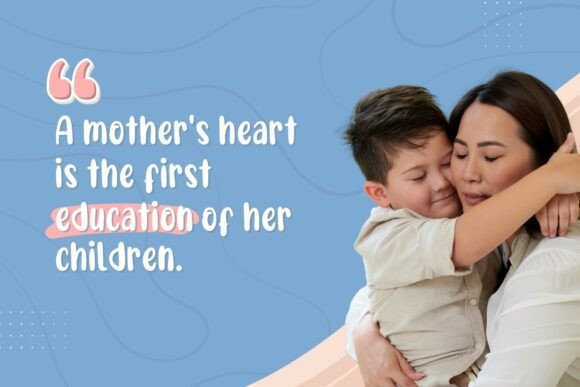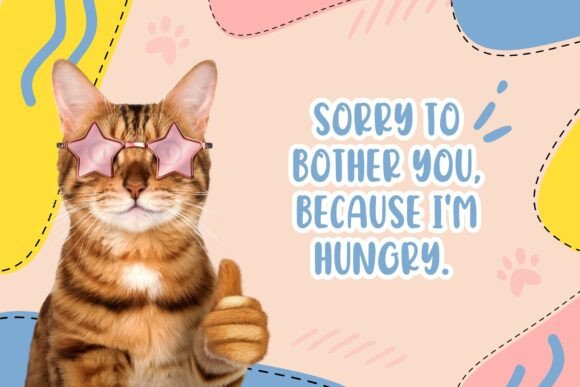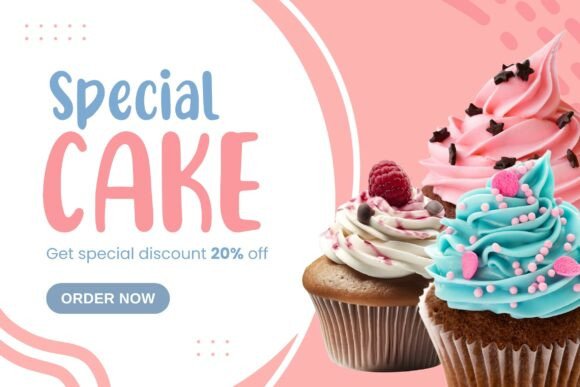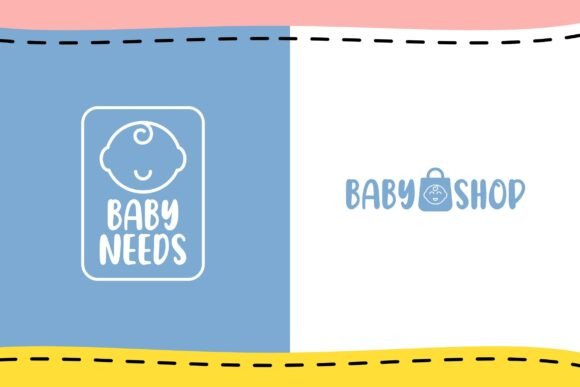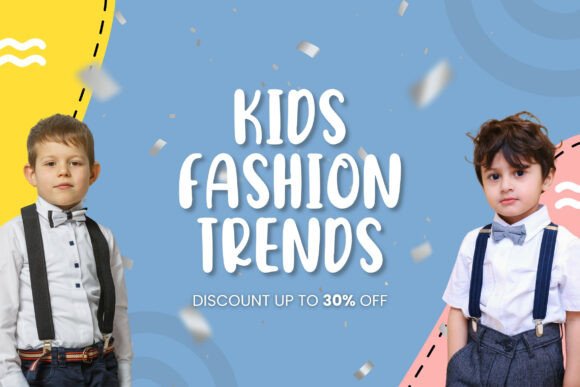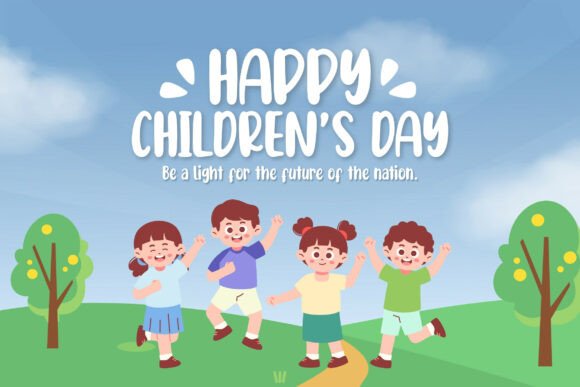
Introduction to Cute Reliano Font
Cute Reliano is a soft and friendly kids font designed to create a clean, calm, and approachable look.
Featuring rounded shapes and smooth strokes, this typeface offers a perfect balance between playfulness and readability With its gentle character and modern feel, Cute Reliano is ideal for children-focused projects that need to look fun yet organized, cheerful yet professional.